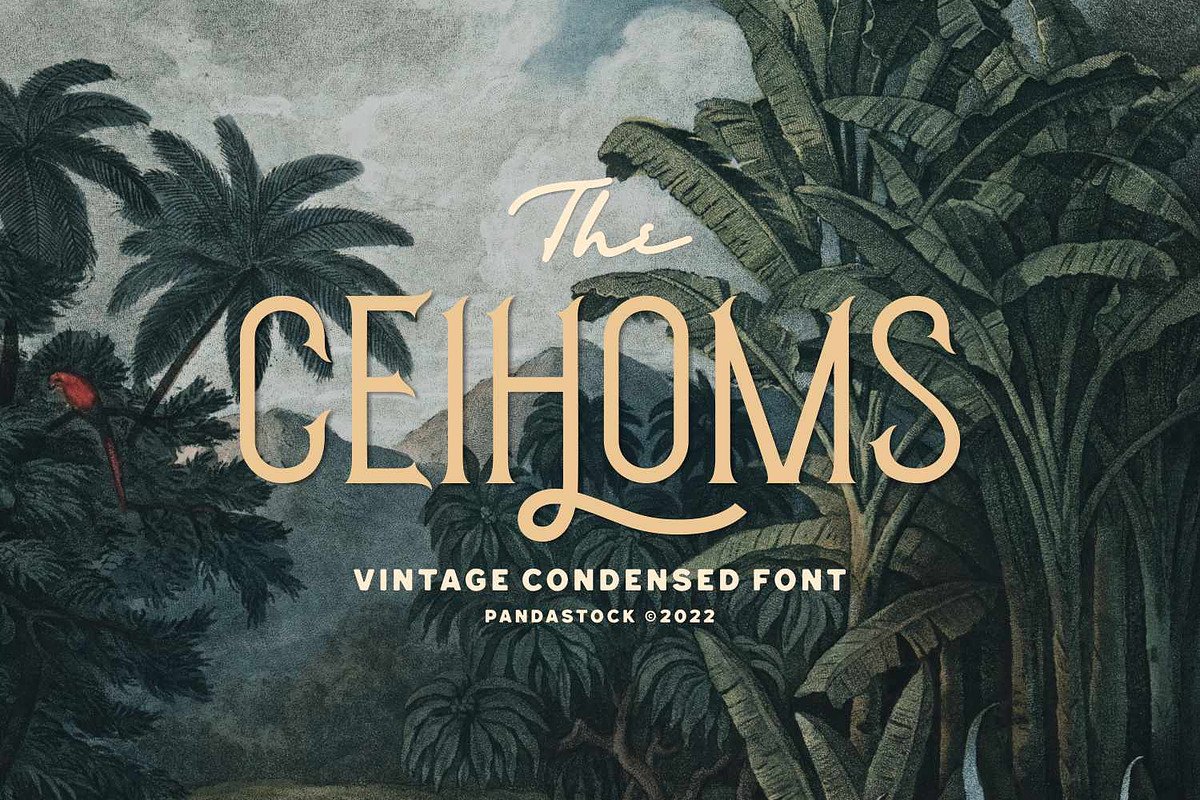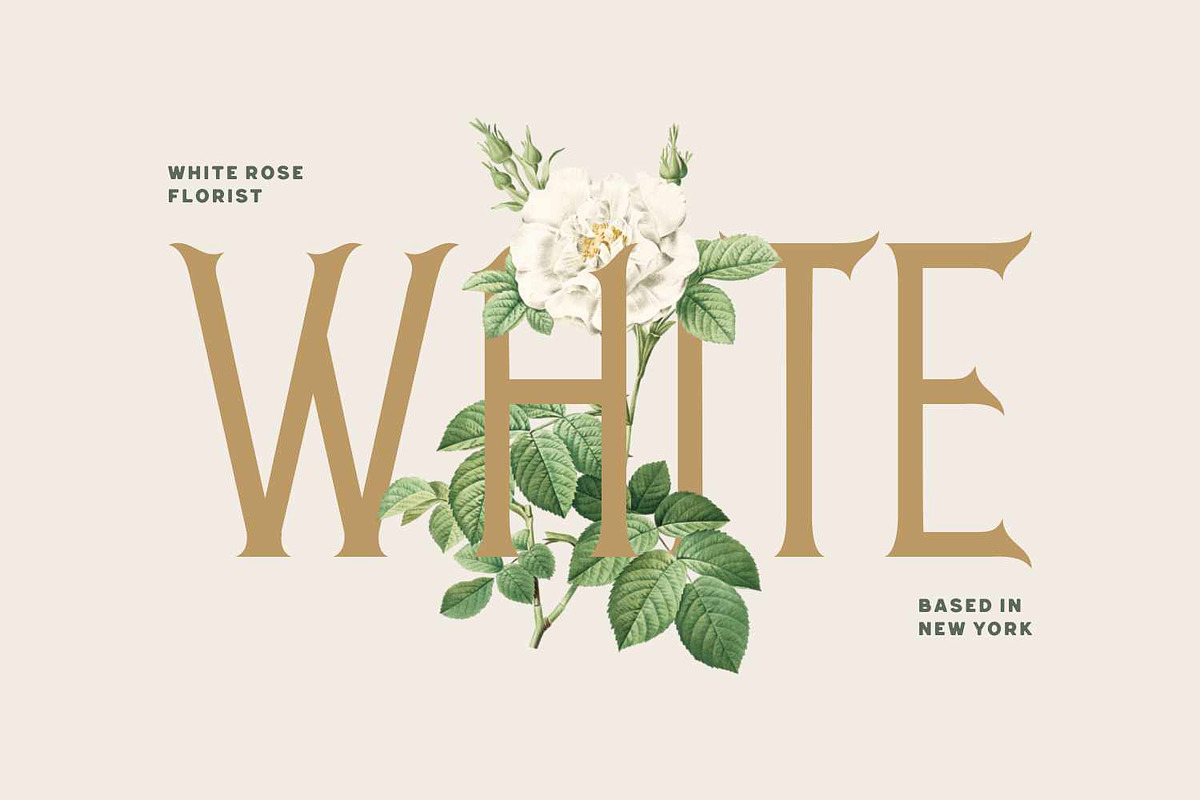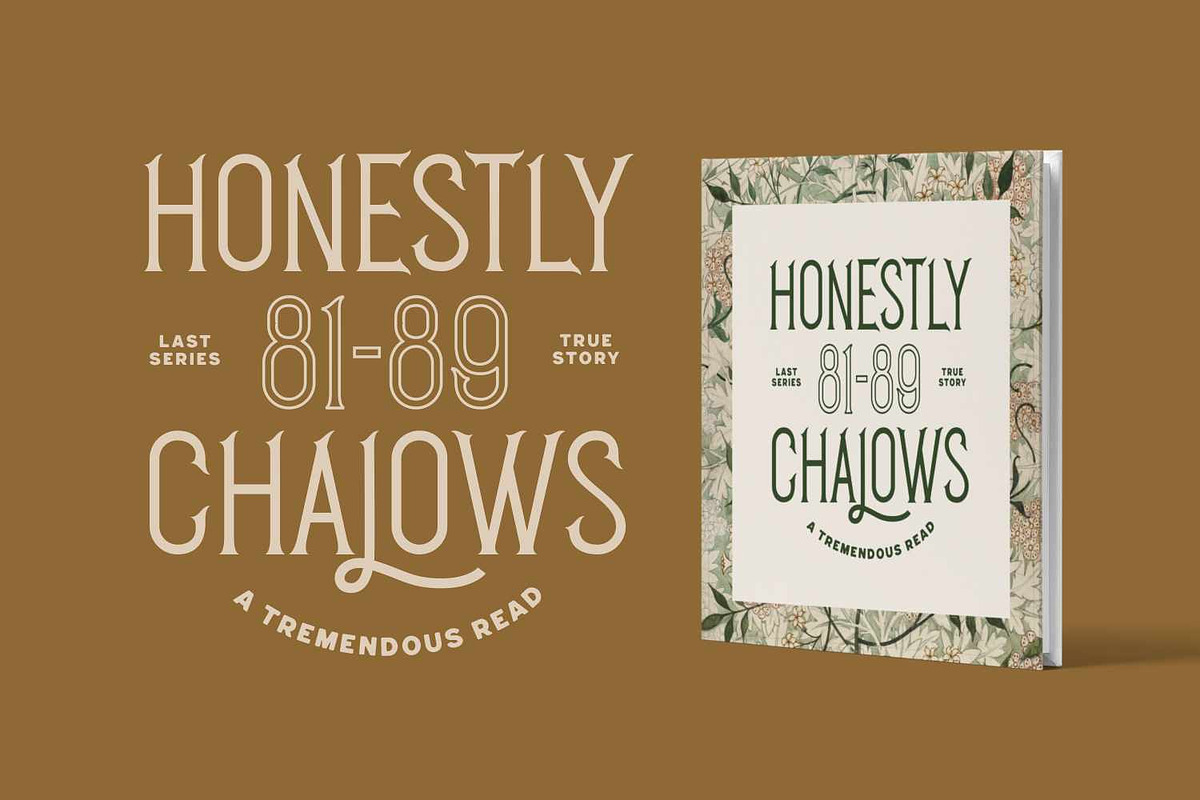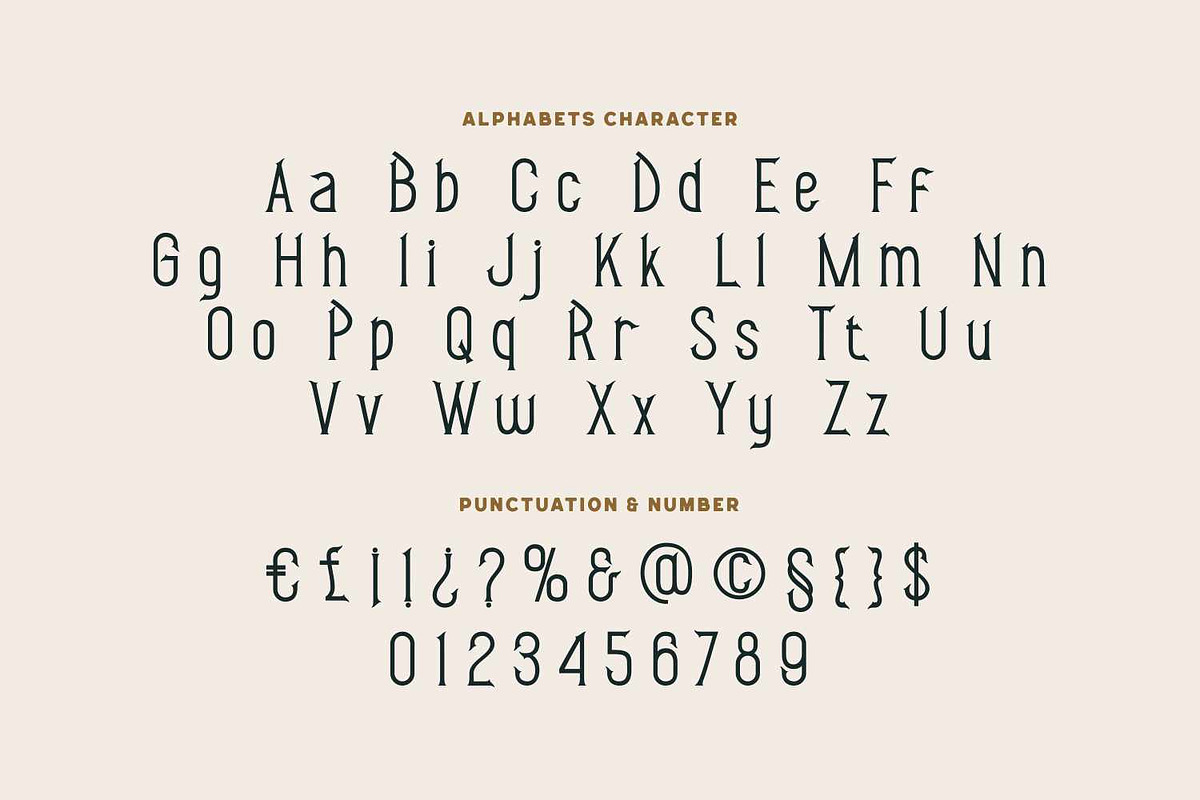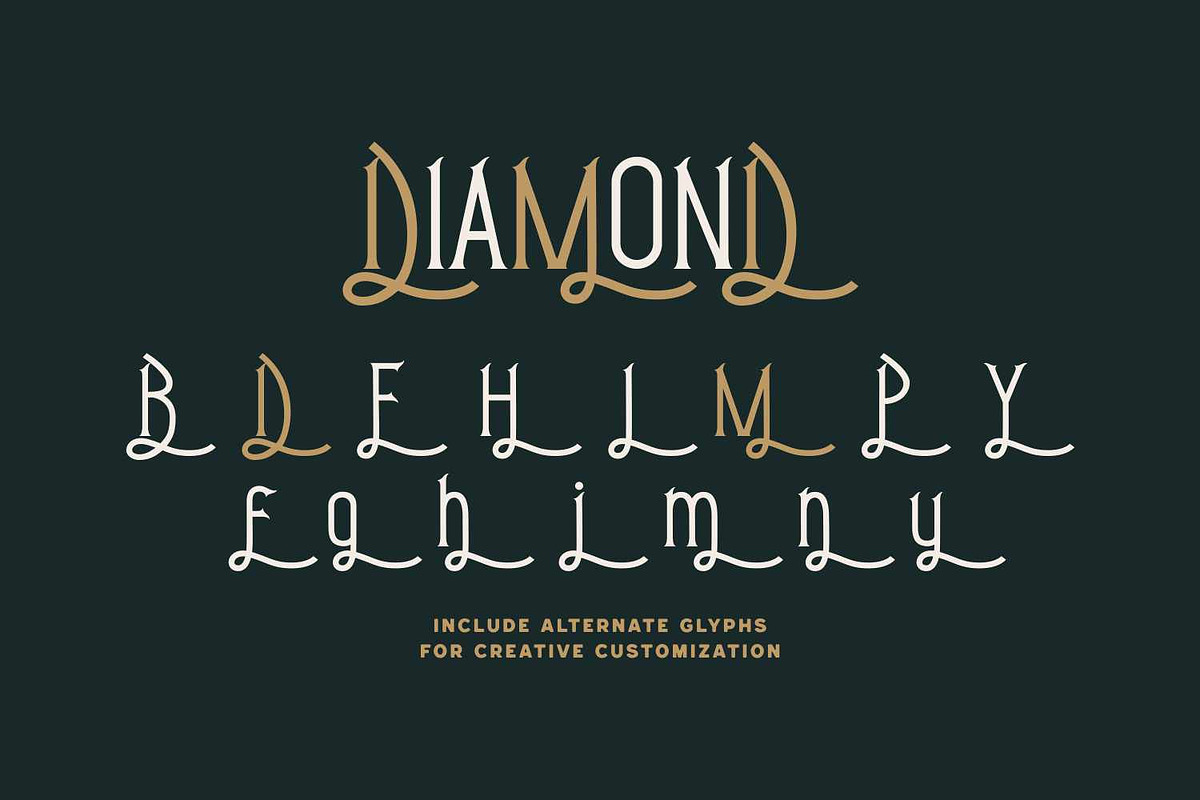
Ceihoms Vintage Lettering
Ceihoms is vintage lettering with visual elegance, smooth curves, and beautiful ligatures clear, making your work look true and attractive.
A very versatile font that works in both large and small sizes. This font is suitable for a wide variety of projects such as invitations, logos, branding, magazine, photography, card, product packaging, mugs, quotes, poster, labels, signatures, and more.
- Punctuation, Number, and Symbol
- Multilingual Support ÀÁÂÃÄÅÆÇÈÉÊËÌÍÎÏÐÑÒÓÔÕÖØÙÚÛÜÝ